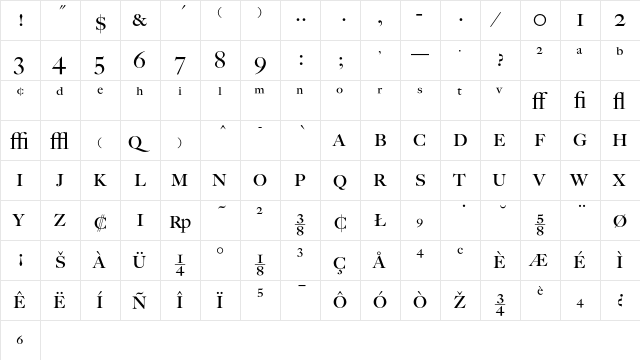
BigCaslon Regular
| Foundry | Carter & Cone Type Inc |
Design Context for BigCaslon Typeface
BigCaslon takes a measured approach to typography — its balanced proportions and neutral character make it a reliable workhorse for both digital and print work.